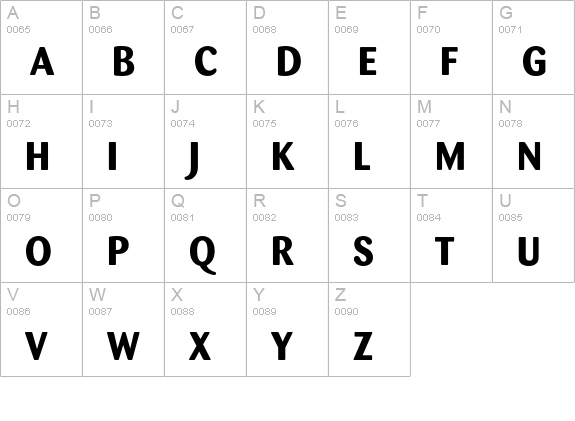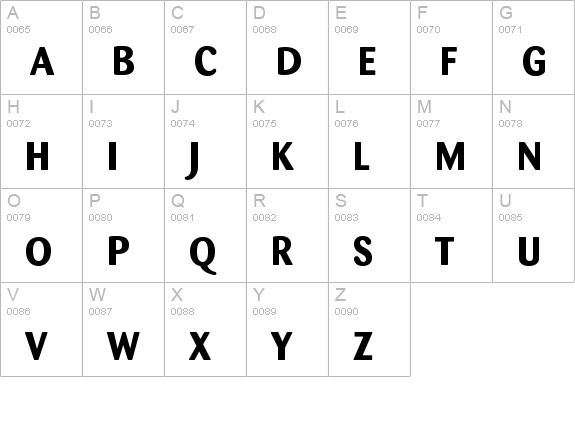
Barmeno R Font Details
Barmeno R font is a modern and elegant typeface that exudes sophistication and professionalism. Its sleek lines and clean design make it perfect for a wide range of design projects, from branding to editorial layouts. With its unique blend of classic and contemporary elements, Barmeno R font adds a touch of refinement to any design. What makes Barmeno R font even more appealing is that it is available for free download at FontsMarket.com. This means that you can easily access this high-quality font without any cost, making it a valuable addition to your font library. Whether you are a designer looking for a versatile typeface or a business owner in need of a stylish font for your marketing materials, Barmeno R font is sure to meet your needs. Download it today and elevate your design projects with this exceptional font.